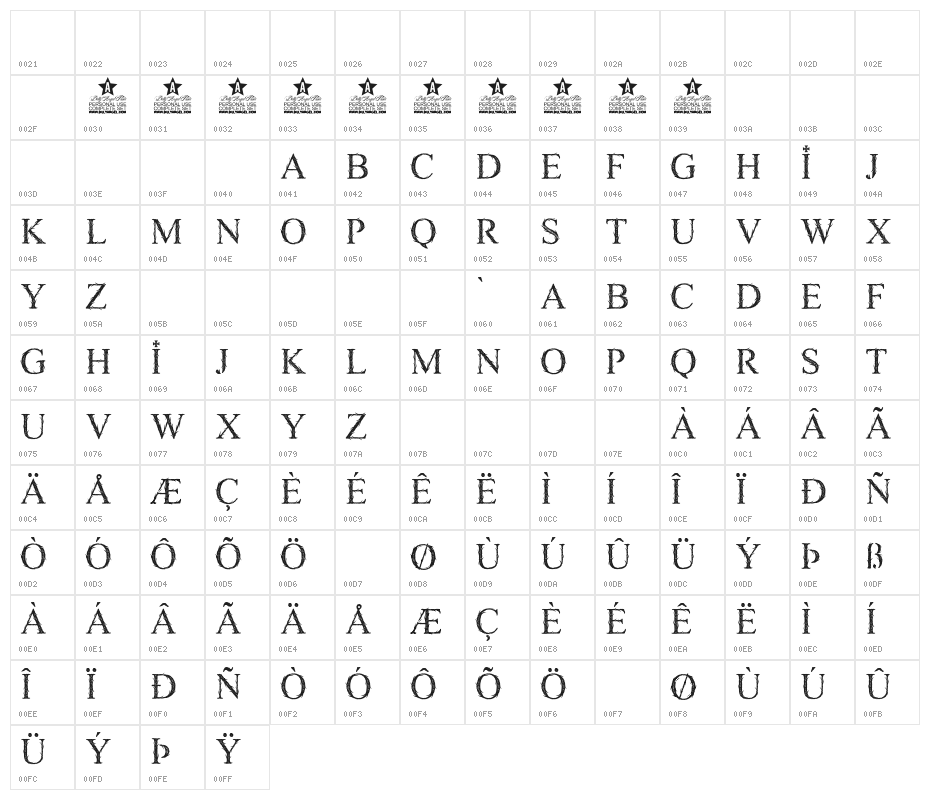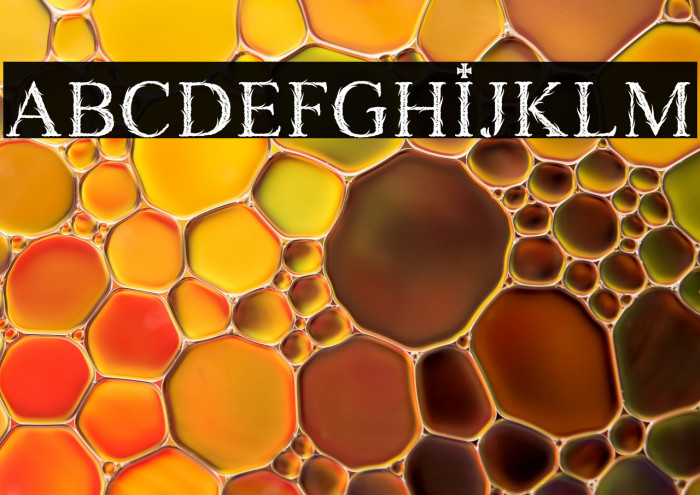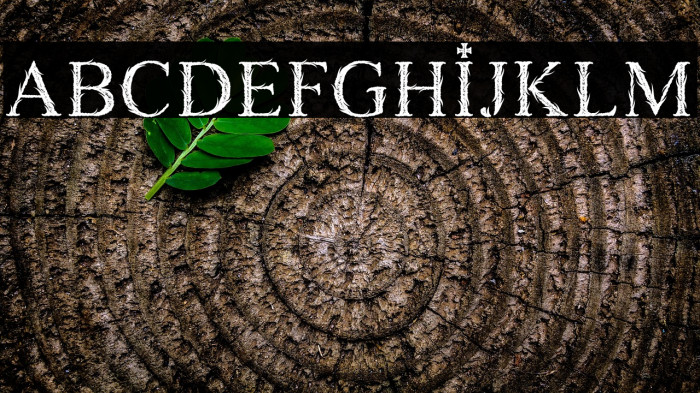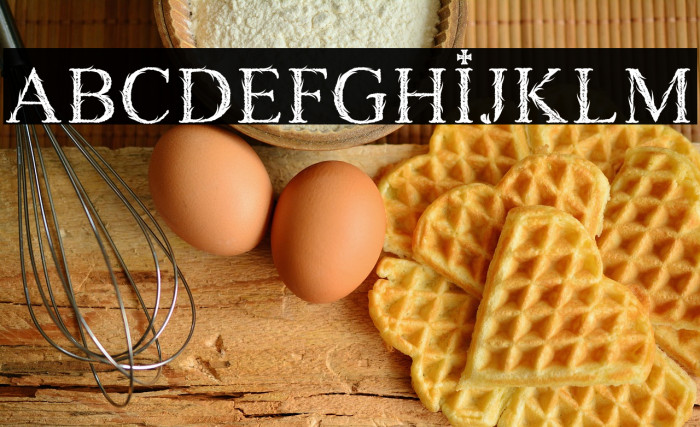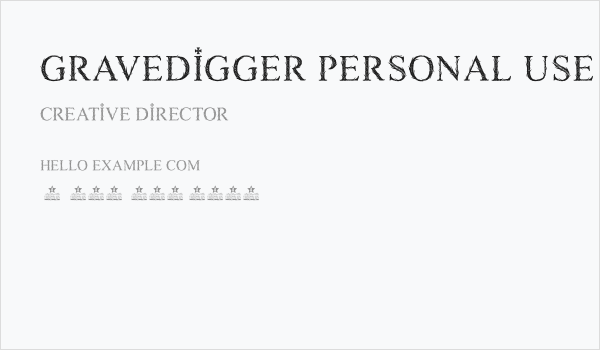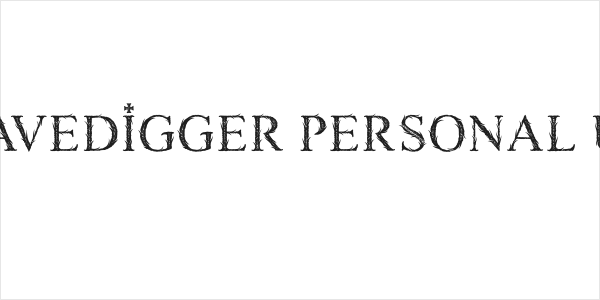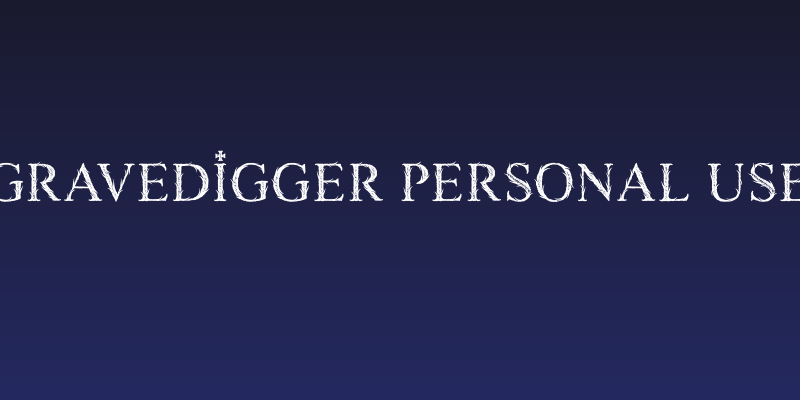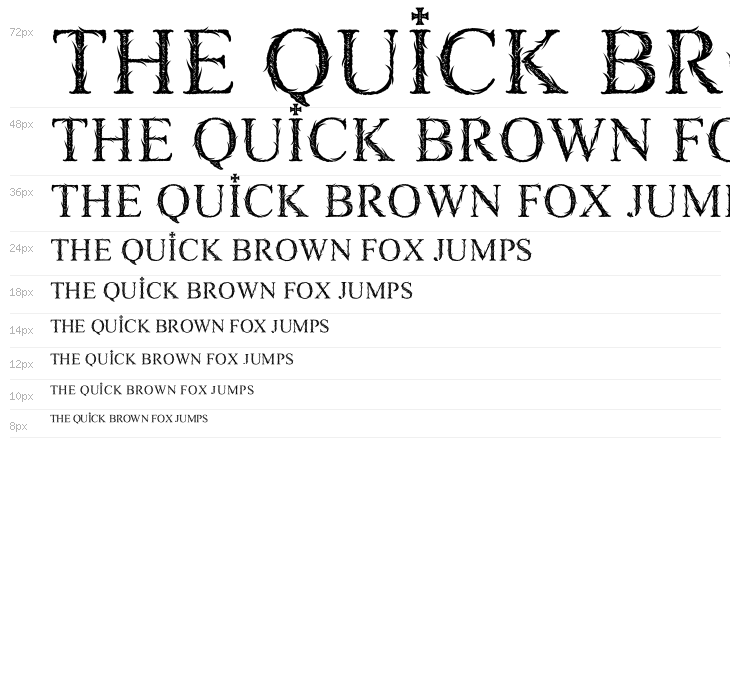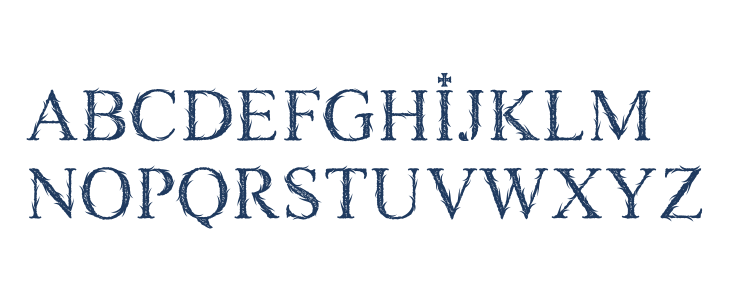
GRAVEDIGGER PERSONAL USE Font
GRAVEDIGGER PERSONAL USE Description
This font features a distinctive, rugged design with a textured, hand-drawn appearance. Each letter is adorned with sharp, thorn-like embellishments that give it a gothic and slightly eerie feel. The uppercase letters are bold and commanding, while the lowercase letters maintain the same intricate detailing. The numbers and special characters are consistent with the overall style, making this font suitable for projects that require a dramatic and eye-catching typeface. The unique design elements make it stand out, perfect for themes that are dark, mysterious, or horror-related.
Overall StyleGothic, Decorative
Proposed ProjectsIdeal for horror-themed posters, Halloween invitations, gothic book covers, and video game titles.